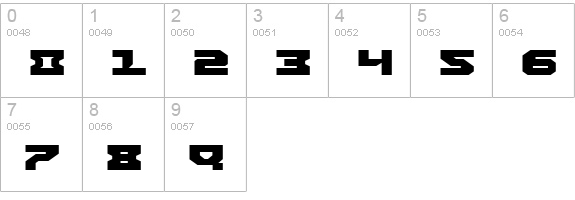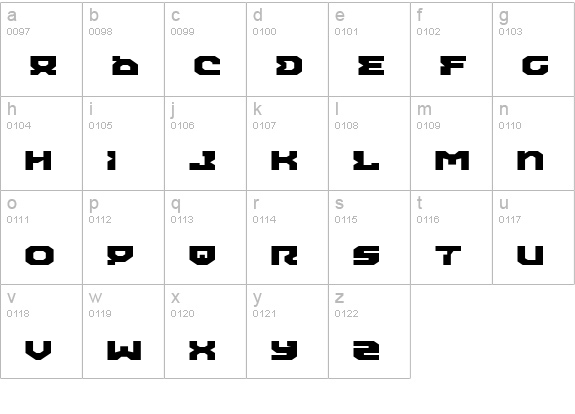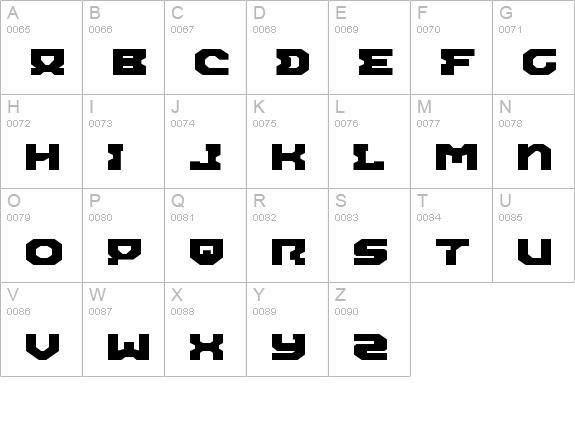
Airacobra Expanded is a distinctive, extended-width variant in the Airacobra typeface family \xE2\x80\x94 well suited to design and typography projects.
Airacobra Expanded font is a bold and eye-catching typeface that exudes a sense of strength and modernity. With its sleek lines and geometric shapes, this font is perfect for creating striking headlines, posters, and branding materials. The expanded version of Airacobra adds an extra level of impact and presence to your designs. Best of all, Airacobra Expanded font is available for free download at FontsMarket.com. This means you can easily access this versatile and stylish font to enhance your creative projects without any cost. Whether you're a designer looking to add a contemporary touch to your work or a business owner wanting to make a statement with your branding, Airacobra Expanded font is sure to impress. Download it today and elevate your designs to the next level!